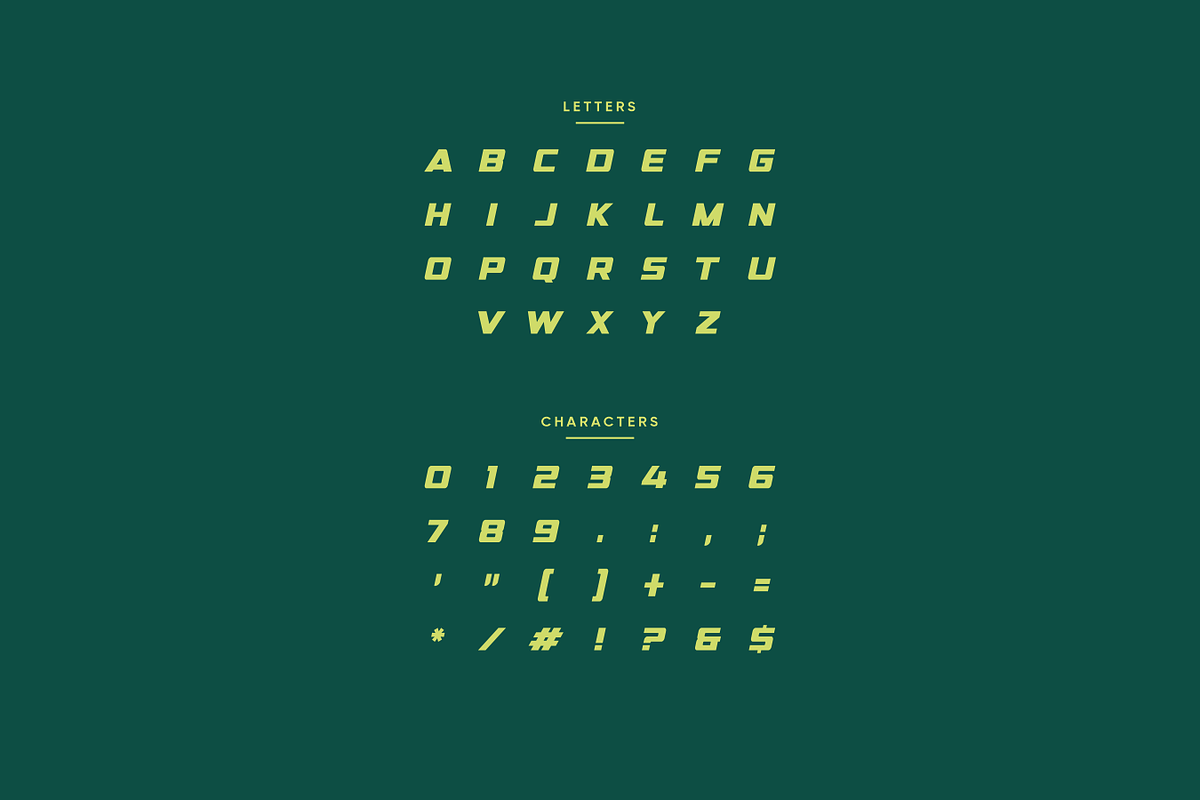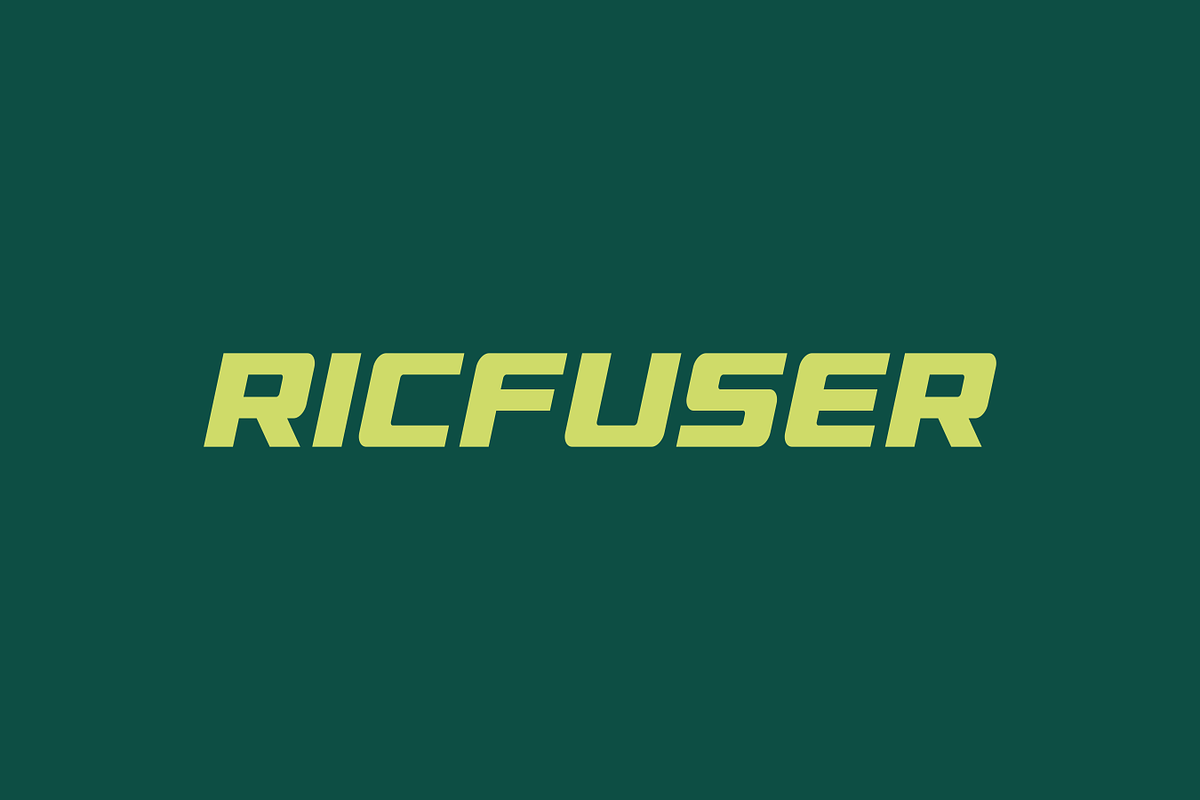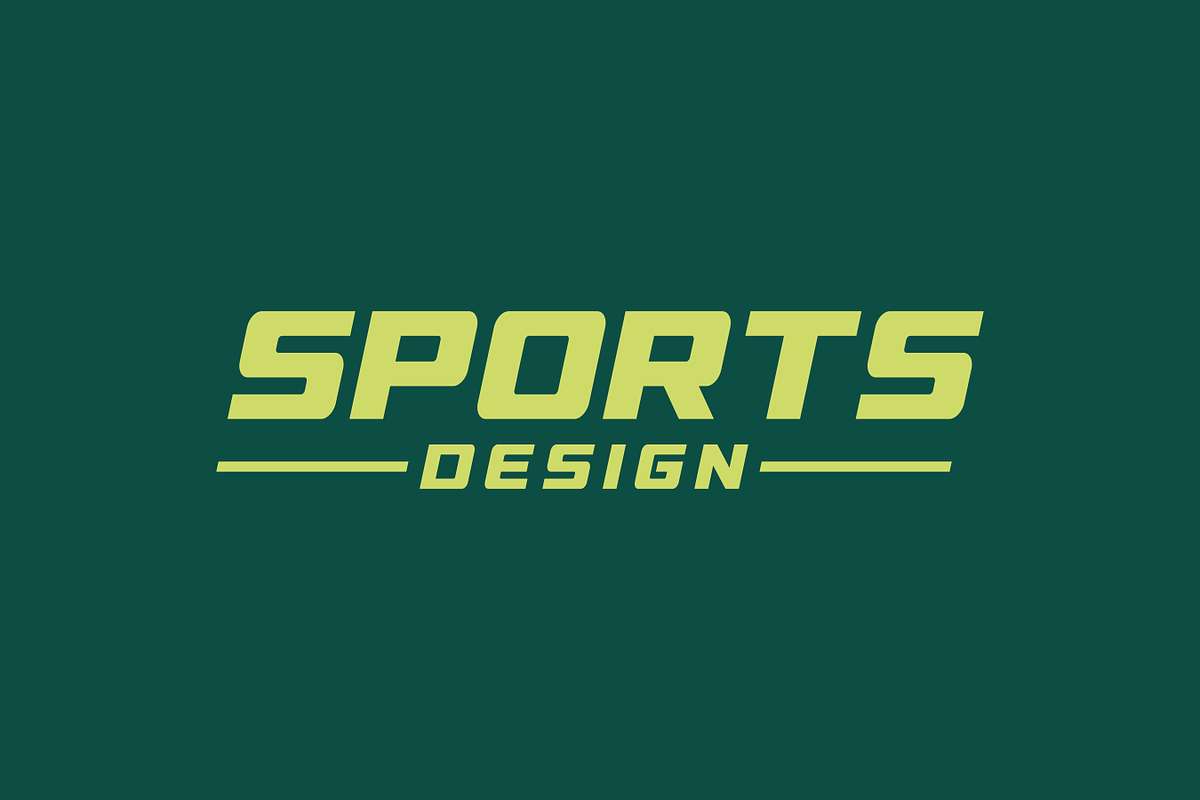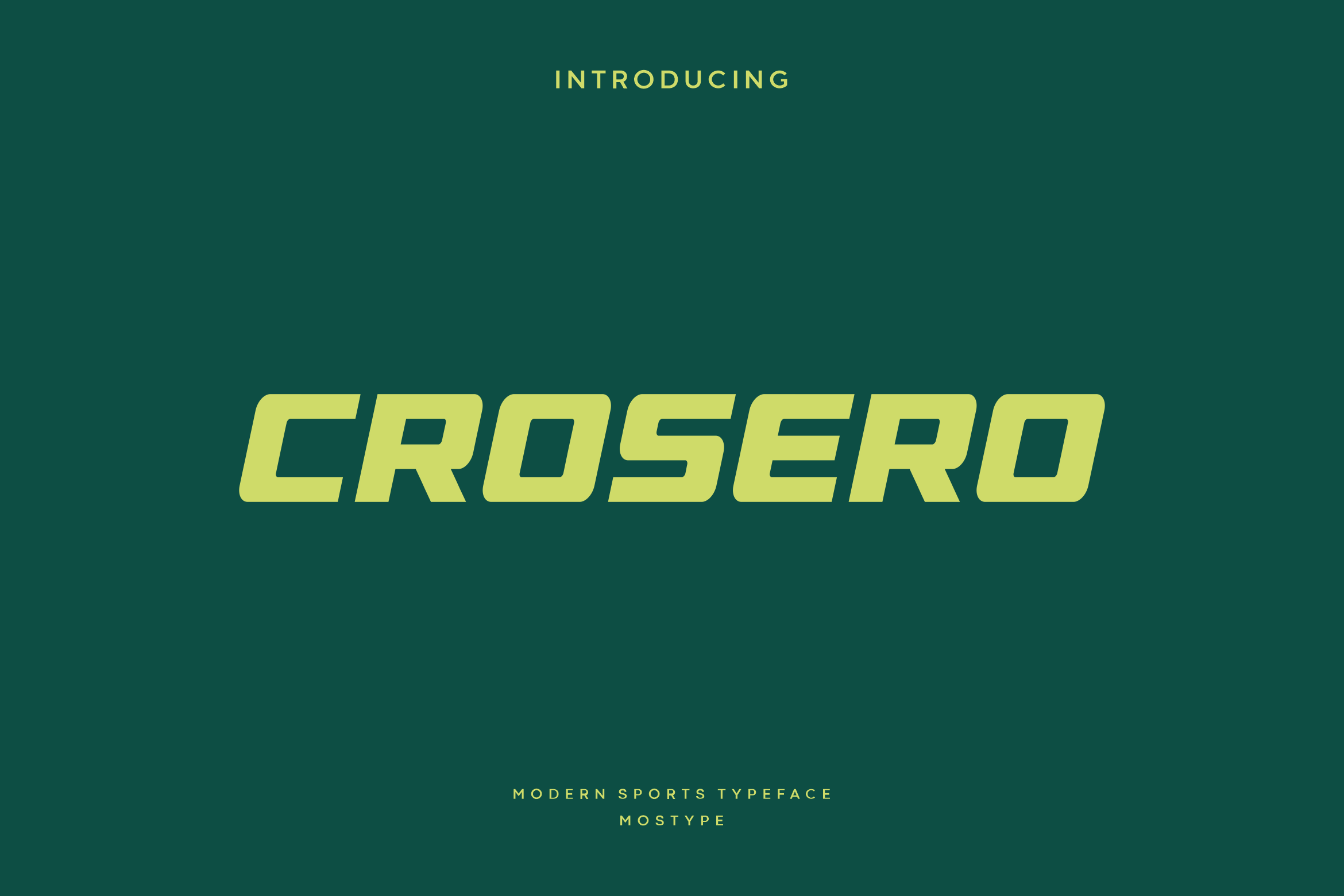
Crosero - Modern Sport Typeface
Crosero font embodies sleek, dynamic lines mirroring the speed and energy of modern sports racing. Its bold typography captures the essence of velocity, with sharp, futuristic contours that evoke a sense of adrenaline-fueled motion.